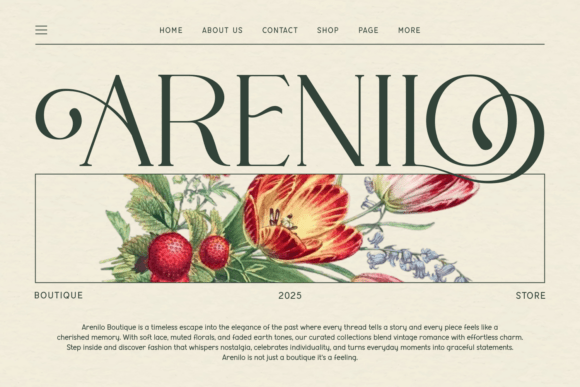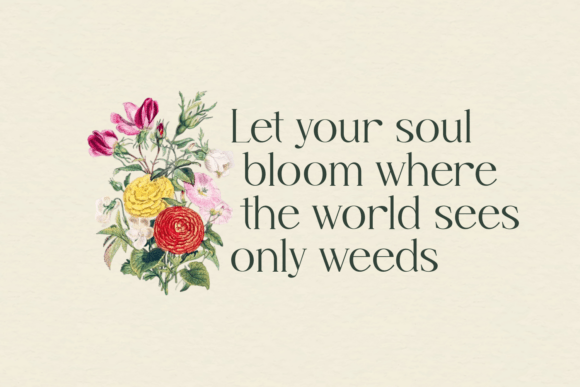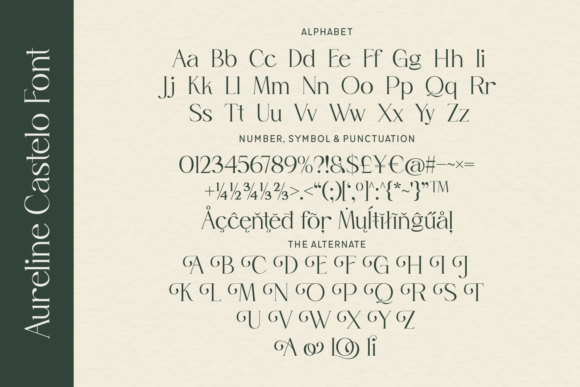
A New Classic in the Making: Introducing Aureline Castelo – Elegant Serif Typeface Font
As designers, we’ve all been there – staring at a blank canvas, waiting for that spark of inspiration to strike. For me, it was a quiet afternoon in a vintage bookstore, surrounded by the musty scent of old pages and the soft glow of antique lamps. It was there that I stumbled upon an old book with a beautiful, elegant serif font that caught my eye. Little did I know, that moment would inspire the creation of a new font that would soon become a favorite among designers.
Meet Aureline Castelo – Elegant Serif Typeface Font, a brand new serif typeface designed to evoke the classic, romantic feel of a bygone era. This exquisite font is perfect for designers looking to add a touch of sophistication and elegance to their projects. Whether you’re working on a luxury brand, a wedding invitation, or a vintage-inspired poster, Aureline Castelo is sure to impress.
Aureline Castelo – Elegant Serif Typeface Font Features
- Elegant Serif Design: Aureline Castelo features a classic serif design with subtle flair, making it perfect for body text, titles, and headings in various design projects.
- High-Quality Typography: The font is carefully crafted to provide exceptional legibility and readability, ensuring that your text stands out in any design context.
- Multi-Language Support: Aureline Castelo supports a wide range of languages, including Latin-based languages, making it a versatile choice for international design projects.
- Easy-to-Use: The font is easy to use, even for designers without extensive typography experience, thanks to its clean and elegant design.
A Designer’s Review: Aureline Castelo
I recently had the chance to work with the “Aureline Castelo – Elegant Serif Typeface Font” and I must say, I was quite impressed. ✨ Here are some of the things that stood out to me:
- Beautifully crafted characters with smooth lines and elegant flair
- Wide range of weights and styles to choose from, making it perfect for various design projects
- Highly legible and clear, even at smaller font sizes
- Works well in both print and digital designs
However, like any font, Aureline Castelo has its limitations. ⚠️ Here are a few things to consider:
- Might be a bit too ornate for some designs, so it’s essential to balance it with simpler elements
- Some characters may require manual adjustments for optimal spacing and alignment
- Not suitable for very small or low-resolution displays
Overall, I’m really impressed with Aureline Castelo. It’s a beautiful and versatile font that can elevate any design project. While it may have some limitations, they’re easily outweighed by its many strengths. If you’re looking for a sophisticated and elegant font, Aureline Castelo is definitely worth considering.
Getting the Most Out of Aureline Castelo
To get the most out of Aureline Castelo, use it for:
- Book covers and magazine layouts
Remember to pair Aureline Castelo with other elegant fonts and design elements to create a cohesive and sophisticated look.
What is the character set and language support for the Aureline Castelo font?
The Aureline Castelo font includes a comprehensive character set that supports Latin, Greek, and Cyrillic alphabets, as well as a range of punctuation and special characters. The font also includes support for Western European, Central European, and Turkish languages. For a detailed list of supported languages and characters,